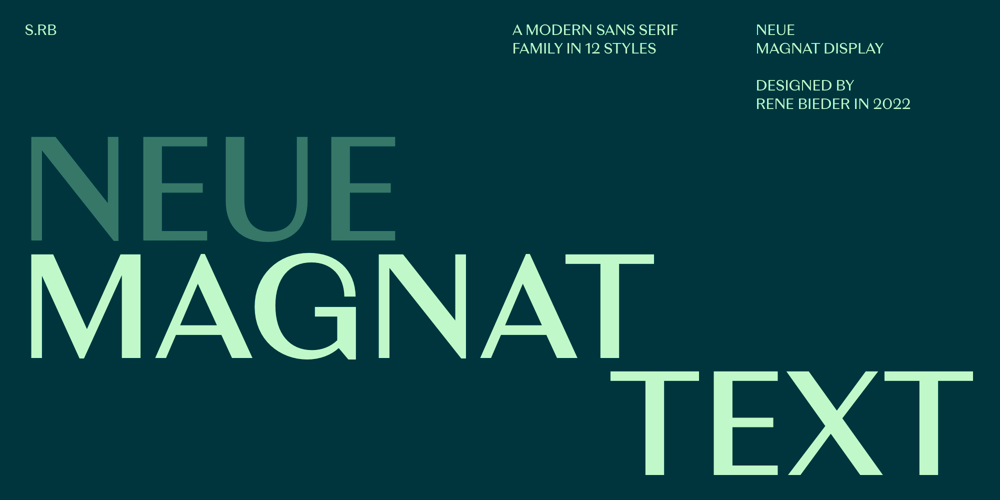
Neue Magnat Text Font Family was designed by René Bieder and published by René Bieder. Neue Magnat Text contains 12 styles and family package options. Transport yourself to the vibrant atmosphere of 1920s Berlin, where Art Nouveau reigns supreme and creativity knows no bounds. The city’s upper echelons revel in opulence and splendor, indulging in lavish celebrations that know no limits. It is within this cultural milieu that the Neue Magnat family finds its origins. Rather than concealing its aristocratic heritage, Neue Magnat proudly embraces its high society background, celebrating it with unabashed extravagance. Like a true VIP in the midst of the proletariat, Neue Magnat stands tall, exuding an aura of exclusivity and grandeur. It commands attention and admiration, effortlessly captivating all who encounter its refined elegance. The Neue Magnat family reigns supreme, embodying the essence of a bygone era while enchanting modern audiences with its timeless allure. Neue Magnat is available in three optical sizes – Text, Standard and Display– optimized for each specific typographic use case.